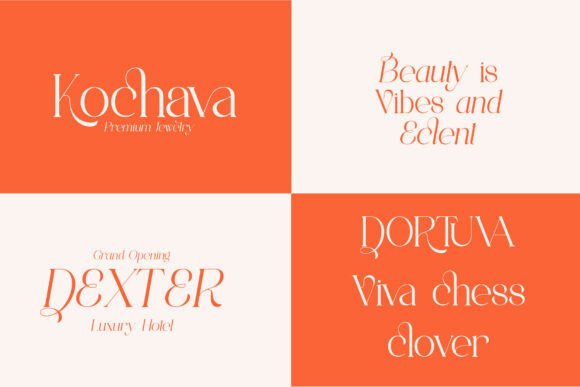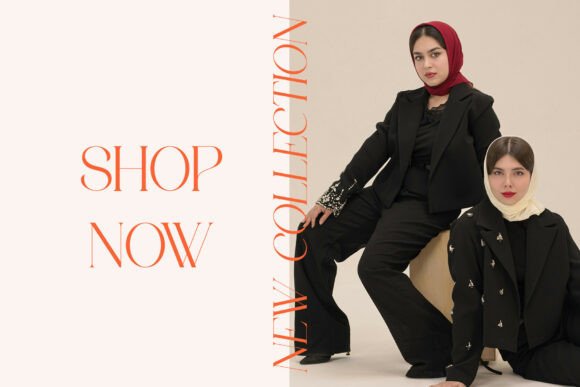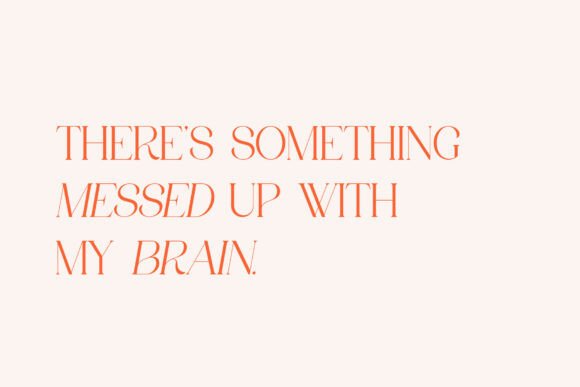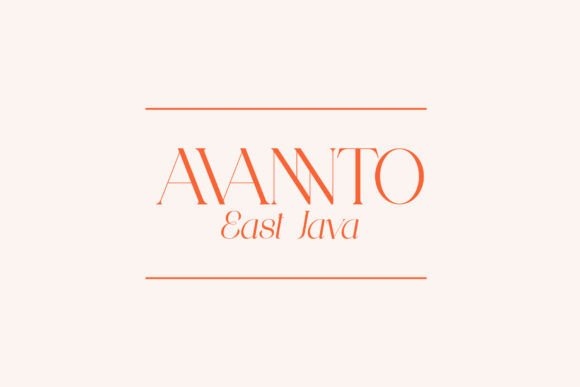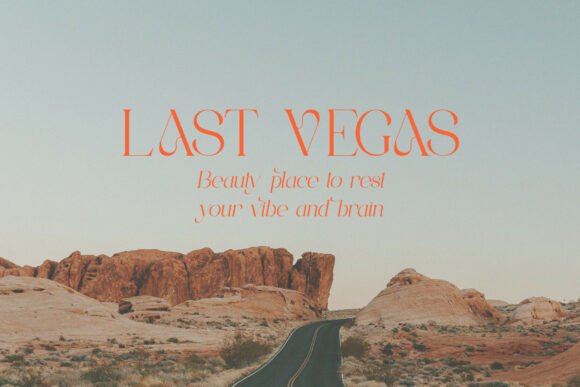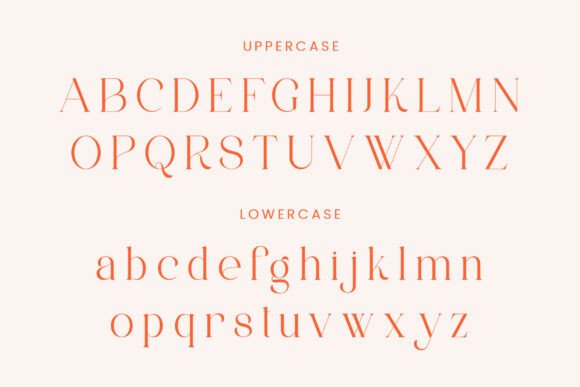
Introducing Anni Font: The Modern and Minimalist Serif Font for Designers
In the world of design, typography plays a crucial role in conveying a message and creating a lasting impression. A well-crafted font can elevate a design from ordinary to extraordinary. If you’re a designer or crafter looking for a font that embodies modernity and minimalism, look no further than Anni Font. In this article, we’ll explore the features and benefits of Anni Font, and why it’s the perfect choice for your design needs.
What is Anni Font?
ANNI – Regular & Italic Serif Font is a thoughtfully designed font that combines modernity with minimalism. Its clean lines, elegant curves, and balanced proportions make it an ideal choice for a wide range of design applications. Whether you’re working on a logo, brochure, video, advertising branding, poster, invitation, or any other project, Anni Font is the perfect companion to help you achieve your creative vision.
Key Features of Anni Font
• Modern and Minimalist Style: Anni Font boasts a sleek and contemporary design that will instantly elevate your designs.
• Regular and Italic Styles: The font comes in two styles, allowing you to add variety and emphasis to your text.
• Serif Font: The subtle serifs add a touch of sophistication and elegance to your designs.
• High Versatility: Anni Font is suitable for a wide range of design applications, from logos and brochures to videos and posters.
Benefits of Using Anni Font
So, why choose Anni Font for your design projects? Here are just a few benefits you can expect:
• Professional Look and Feel: Anni Font is designed to help you create professional-looking designs that will impress your clients and audience.
• Easy to Read: The font’s clear and balanced design ensures that your text is easy to read, even at small sizes.
• Time-Saving: With Anni Font, you can quickly and easily create stunning designs without spending hours on typography.
• Unique and Creative: The font’s modern and minimalist style will help your designs stand out from the crowd.
Who Can Benefit from Anni Font?
Anni Font is an excellent choice for a variety of designers and crafters, including:
• Graphic Designers: Add a touch of modernity and sophistication to your logos, brochures, and posters.
• Digital Artists: Use Anni Font to create stunning text overlays for your videos and animations.
• Crafters: Add a professional touch to your handmade products, such as invitations, business cards, and packaging.
• Marketers: Create eye-catching advertising materials, such as flyers, banners, and social media graphics.
Tips for Using Anni Font Effectively
To get the most out of Anni Font, here are a few tips to keep in mind:
• Experiment with Font Sizes: Play with different font sizes to create visual hierarchy and emphasis.
• Pair with Other Fonts: Combine Anni Font with other fonts to create a unique and creative typography.
• Adjust Line Spacing: Adjust the line spacing to create a clear and readable text.
In conclusion, Anni Font is a versatile and modern serif font that’s perfect for designers and crafters looking to add a touch of sophistication to their designs. With its clean lines, elegant curves, and balanced proportions, Anni Font is an excellent choice for a wide range of design applications. Whether you’re working on a logo, brochure, video, or poster, Anni Font is sure to help you create stunning designs that will impress your audience.